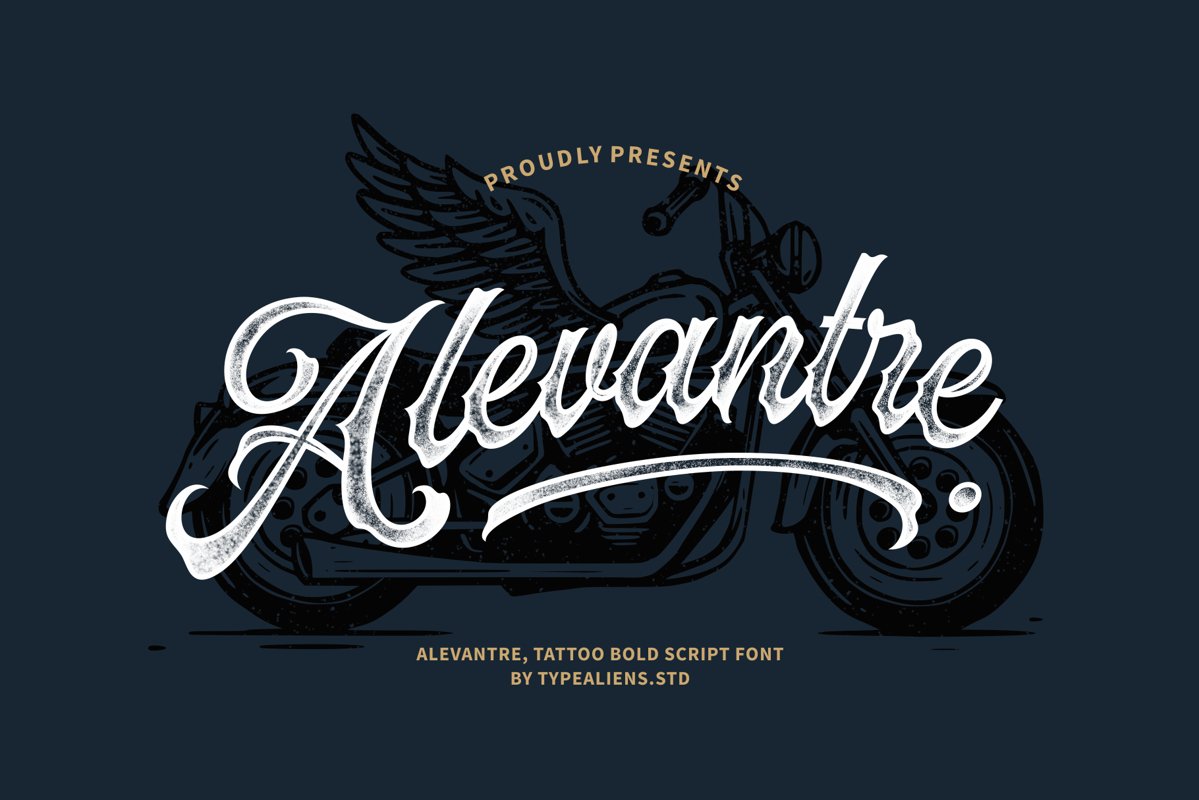
Alevantre
ALEVANTRE is a tattoo style script, of course it will be very suitable for your tattoo lettering design. It is also very suitable if you want to make your tattoo studio logo using this font.